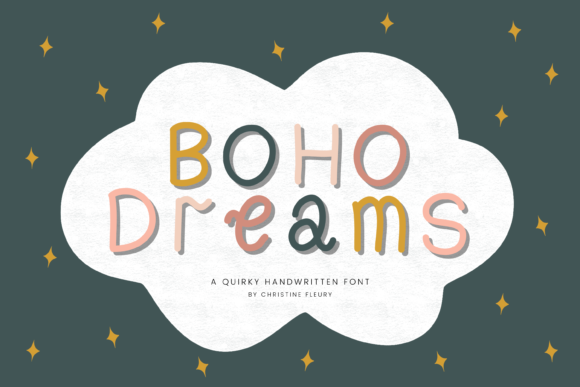
In a digital world saturated with uniformity, let your creativity soar with Boho Dreams Font, a whimsical handwritten masterpiece designed to infuse your projects with a touch of bohemian flair and dreamy charm. Its delightful mix of uppercase and lowercase characters dances across your screens, captivating audiences with its charming imperfections.
Journey into a world where letters are alive with personality, where each stroke tells a story, and every word becomes an enchanting adventure. Boho Dreams is not just a font; it's an expression of your individuality, a reflection of your unique style, and a gateway to a realm of endless creative possibilities.
With Boho Dreams, you'll embark on a typographic odyssey, where every twist and turn reveals a new layer of beauty. Its quirky charm adds a dash of whimsy to invitations, greeting cards, social media posts, and any project that craves a touch of enchantment. Its clean lines and easy readability make it perfect for logos, branding, and website designs, effortlessly elevating your brand to new heights of sophistication.
As you navigate through the Boho Dreams character set, you'll discover a treasure trove of hidden gems—swashes, ligatures, and alternate characters that add depth and dimension to your designs. Unleash your imagination and let your words transform into captivating works of art, leaving a lasting impression on all who encounter them.
Christine Fleury, the creative genius behind Boho Dreams, has poured her heart and soul into crafting this extraordinary font. Her passion for typography shines through in every curve, every stroke, every detail. With Boho Dreams, she invites you to embark on a creative journey where limitations dissolve, and dreams flourish.
Don't let your designs be confined by the ordinary; embrace the extraordinary. Dive into the world of Boho Dreams and watch as your creations come alive, exuding charm, personality, and an irresistible touch of magic.